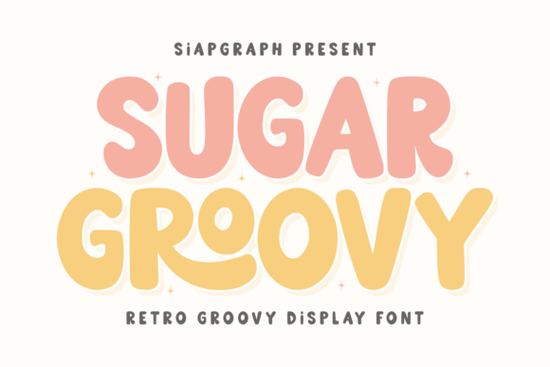
If you're looking for a retro-inspired typeface that works beautifully for vinyl cutting, sublimation, and digital crafting, the Sugar Groovy Font deserves a spot in your font collection. It blends bold 70s-era letterforms with a clean, chunky construction that's built specifically for crafters. Think flowing curves, playful energy, and thick strokes that cut cleanly on vinyl and print with crisp detail on mugs, t-shirts, and stickers.
What Makes This Font Work So Well for Crafting?
A lot of display fonts look great on screen but fall apart in real-world projects. Letters are too thin, curves are too tight, or the spacing makes vinyl weeding a nightmare. Sugar Groovy was designed with these problems in mind.
Its chunky, bold letterforms give you clean edges for SVG cut files, and the organic curves flow smoothly enough that weeding vinyl doesn't become a headache. If you've ever struggled with delicate script fonts snapping during sublimation transfers, you'll appreciate how forgiving this typeface is.
Here's where it really shines:
- Vinyl decals and stickers – thick strokes cut and weed cleanly
- Sublimation on mugs and tumblers – bold text stays readable at smaller sizes
- T-shirt designs – retro vibe pairs perfectly with trending POD aesthetics
- Social media graphics – the groovy style catches eyes in a crowded feed
- Event branding – great for birthdays, music festivals, and summer parties
What Projects and Holidays Does It Fit?
Sugar Groovy's nostalgic, upbeat feel makes it a natural fit for seasonal and celebratory themes. Think Summer Break designs, birthday party invitations, music festival posters, and end-of-year school events. The retro energy gives everything a warm, optimistic tone that people respond to.
It also works nicely for nursery wall art, especially when you want something playful but still readable from across the room. Pair it with soft pastels or bold color blocks, and the contrast between the chunky letterforms and a gentle color palette creates a really appealing look.
How Does It Compare to Other Display Fonts?
If you're building out a font library for your craft business or design work, it helps to have variety. Sugar Groovy fills the retro-groovy niche, but you might also want options for different moods and styles.
Is It Really Optimized for Vinyl and Sublimation?
Yes, and that's the main reason crafters gravitate toward fonts like this. The construction avoids ultra-thin lines, tight inner curves, and fiddly details that cause problems on cutting machines. Every letter has enough visual weight to:
- Hold up on small vinyl decals without tearing
- Stay sharp on sublimation prints where fine details can blur
- Read clearly on screen-printed or DTG t-shirts
- Scale well from small mug-sized text to large wall art
Whether you're using a Cricut, Silhouette, or running a professional Print on Demand setup, the font's clean geometry means fewer failed cuts and less wasted material.
Who Should Use This Font?
This typeface is a solid choice for a range of creative professionals and hobbyists:
- POD sellers who need bold, trending typography for their shops
- Cricut and Silhouette crafters working with vinyl and heat transfer
- Small business owners creating branded packaging, stickers, or signage
- Party planners and event designers making invitations and decorations
- Social media managers looking for scroll-stopping graphics
Quick Checklist Before You Buy
Before adding this font to your collection, make sure it checks these boxes for your workflow:
- ☐ Does the bold, retro style match your current project or brand aesthetic?
- ☐ Are you working with vinyl, sublimation, or digital print where thick letterforms help?
- ☐ Do you need a font that scales from small to large format without losing clarity?
- ☐ Are you designing for seasonal events like summer parties, birthdays, or festivals?
- ☐ Could you pair it with complementary fonts from your library for more variety?
If you answered yes to most of these, this font is a practical addition to your toolkit not just another typeface collecting dust in your downloads folder. Try pairing it with one or two contrasting styles from your collection to see how versatile your projects can become.